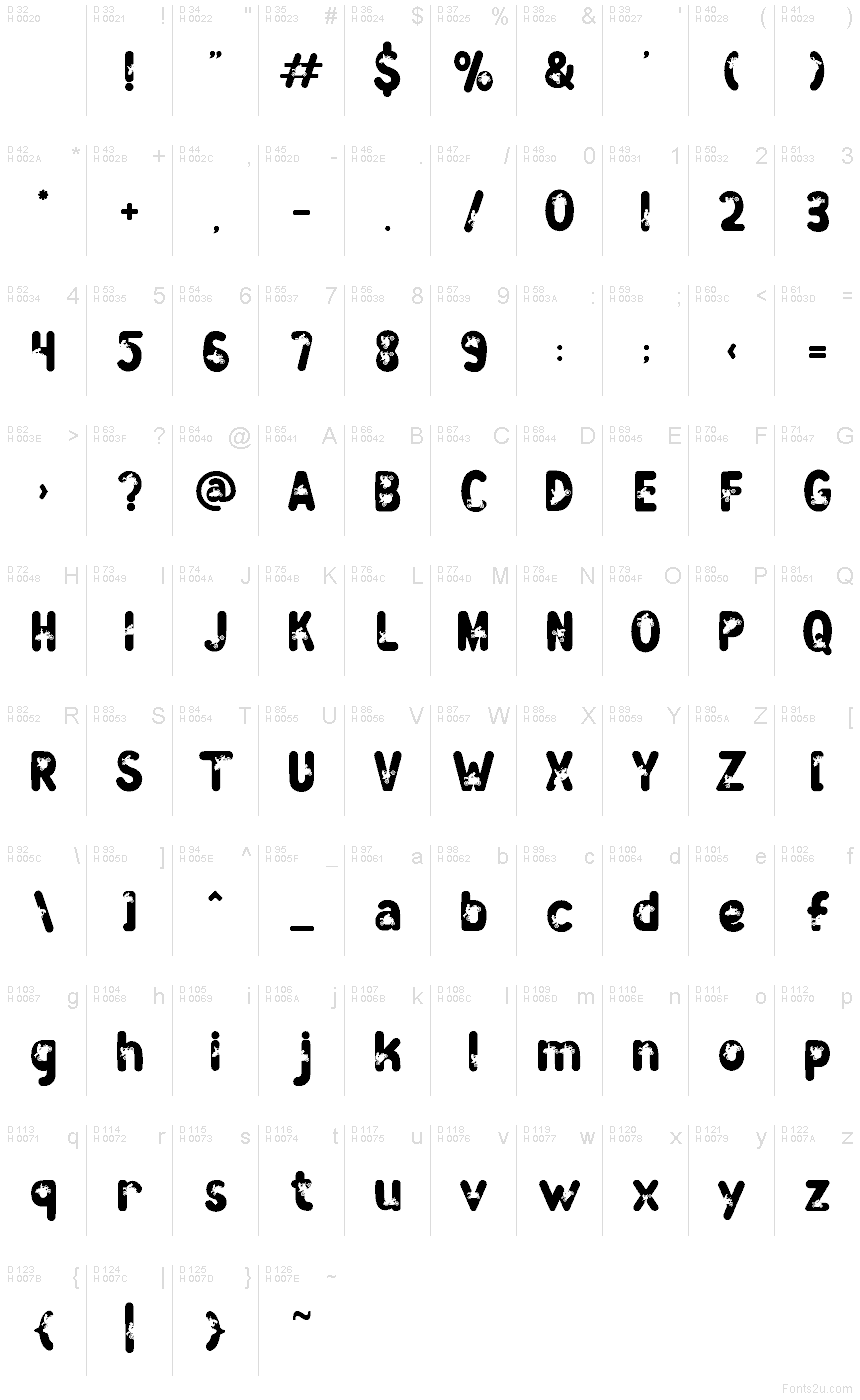
Zany Route Bike
Zany Route Bike font designed by PutraCetol Studio evokes a successful blend of quirkiness, whimsy, and retro inspiration. This free decorative display font is bold with an automotive theme that is impossible to miss. The typeface style is clear in name associations as it instantly generates childish illustrations of zany bicycles and animated route signs.